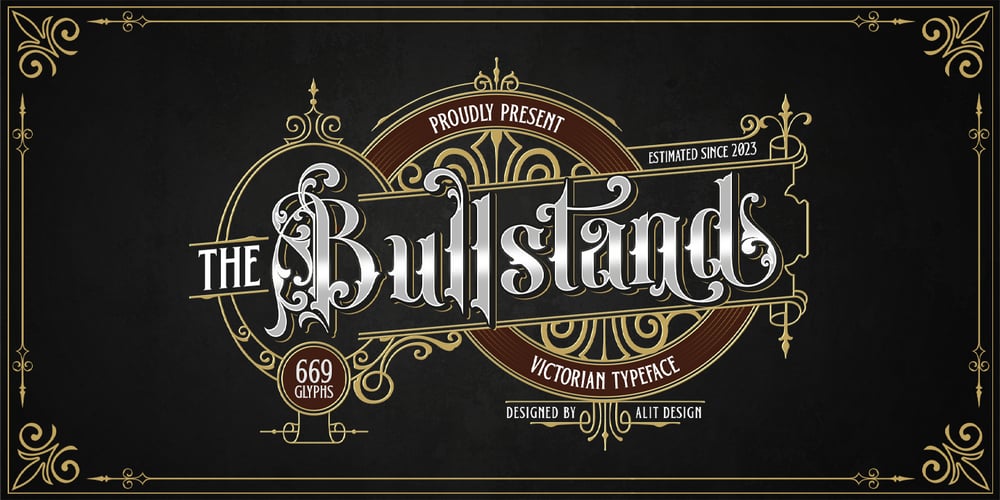
Bullstand Font Family was designed by Alit Suarnegara and published by Alit Design. Bullstand contains 1 styles and family package options. The Bull Stand Victorian typeface is characterized by its intricate detailing, ornate serifs, and elaborate curves. The letters are designed with a fine balance between boldness and delicacy, capturing the essence of Victorian elegance. The typeface showcases the artistic craftsmanship of the time, reflecting the meticulous attention paid to typographic design.